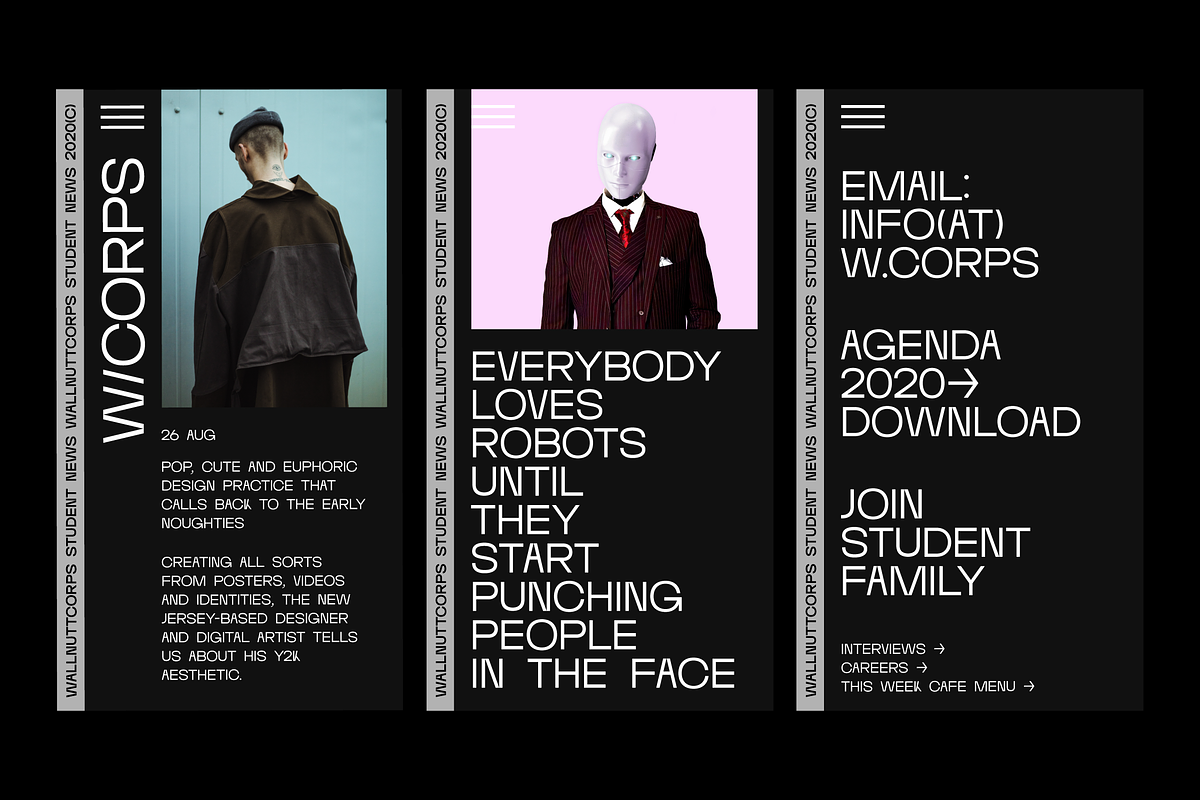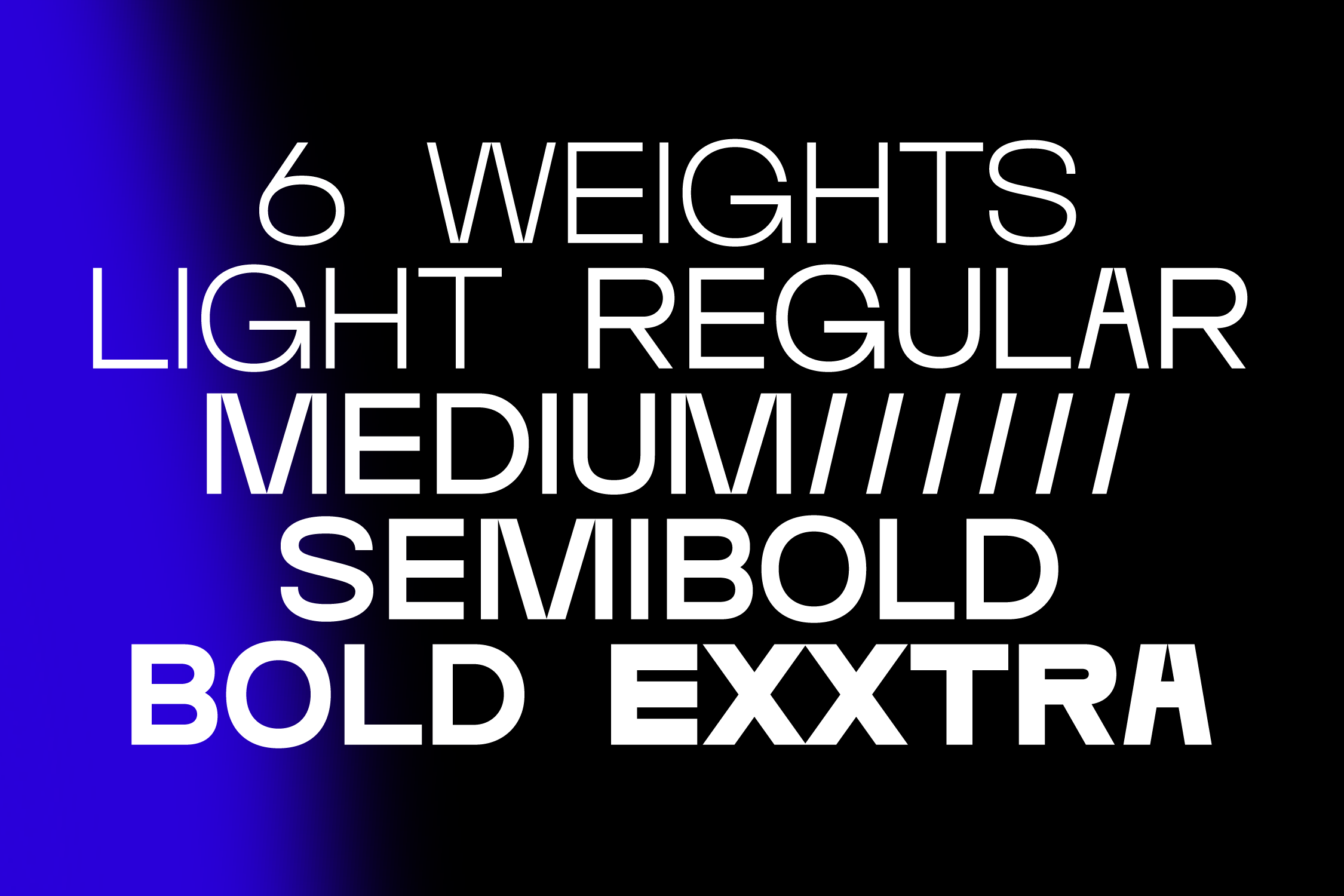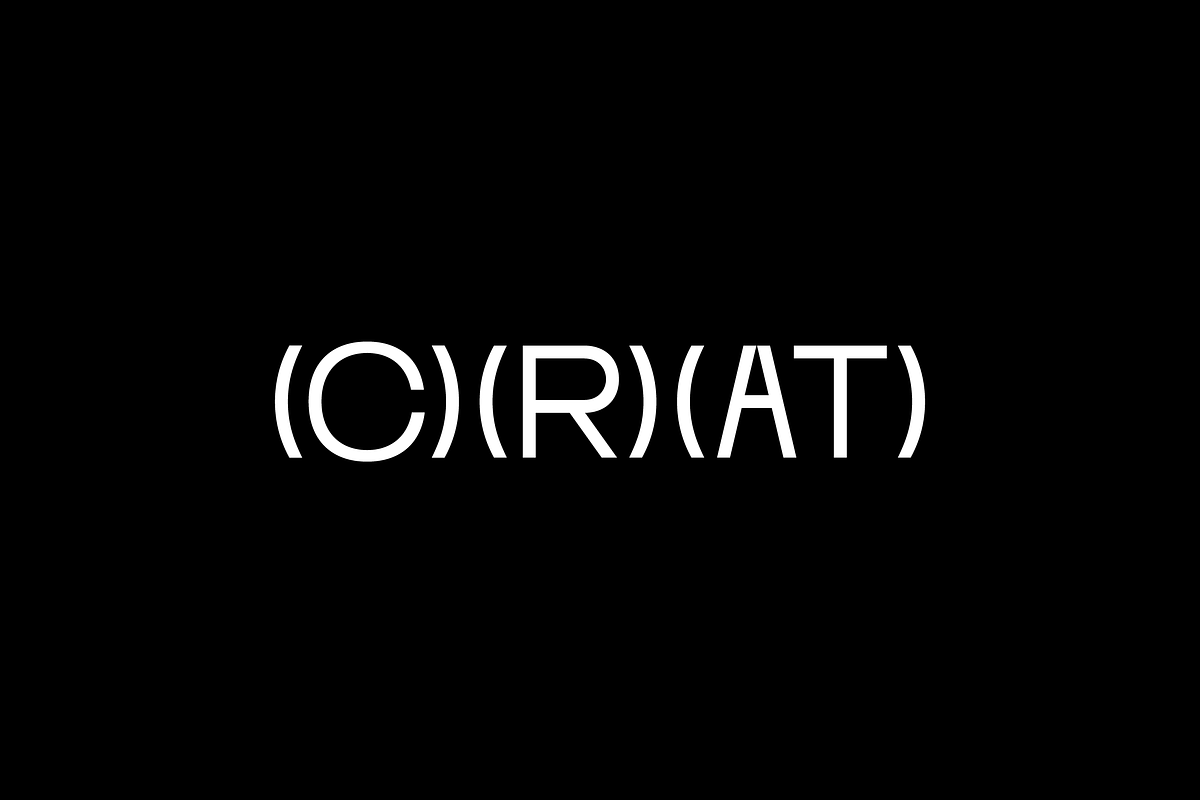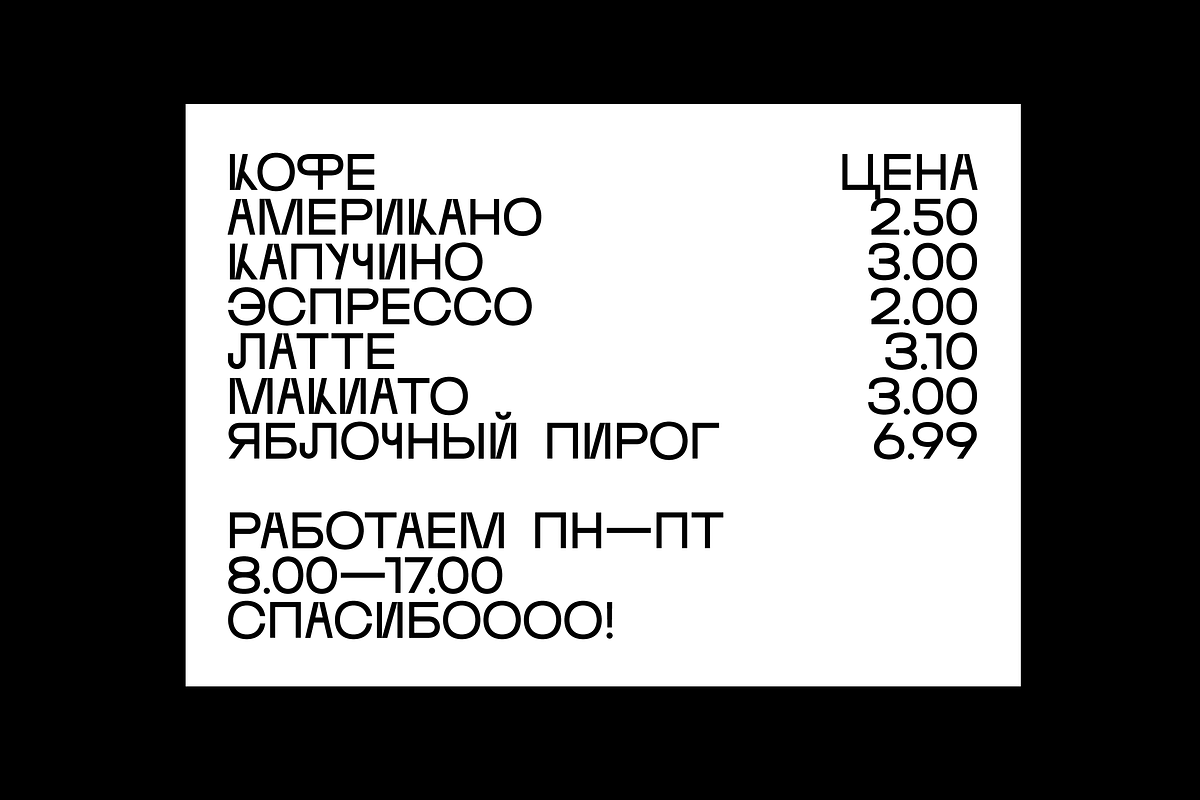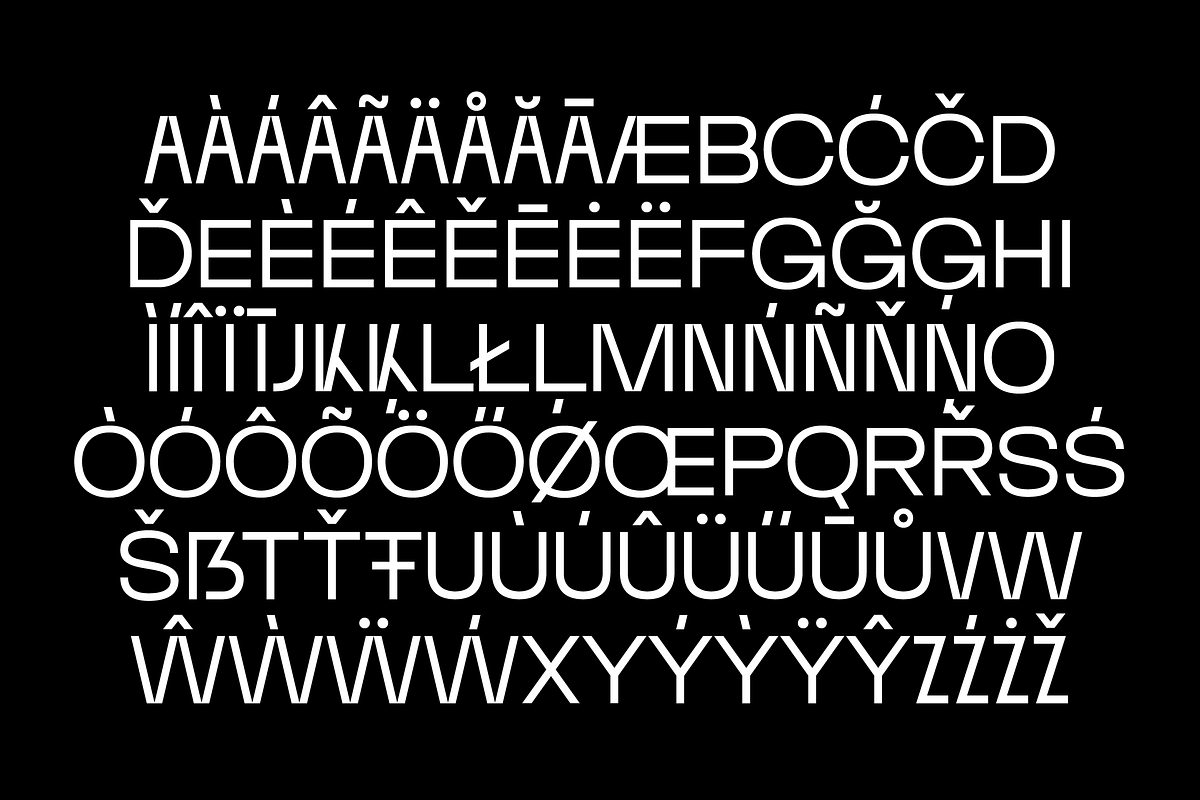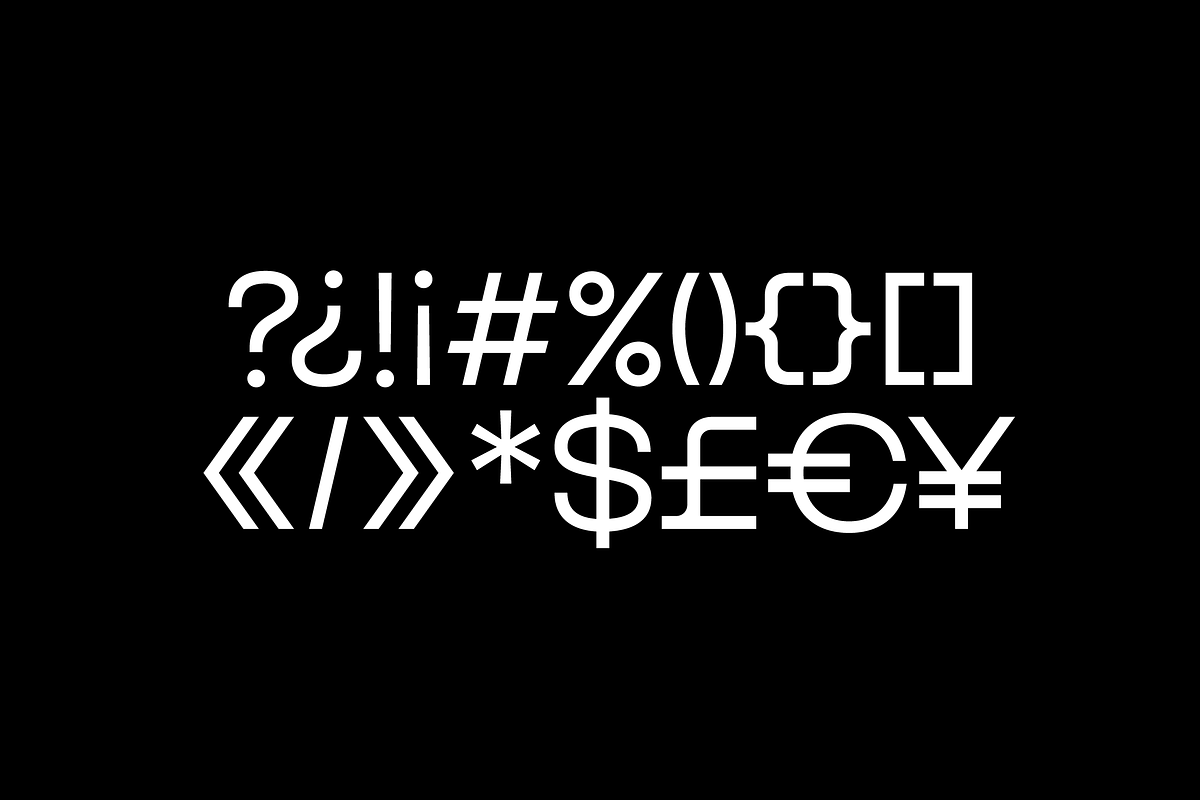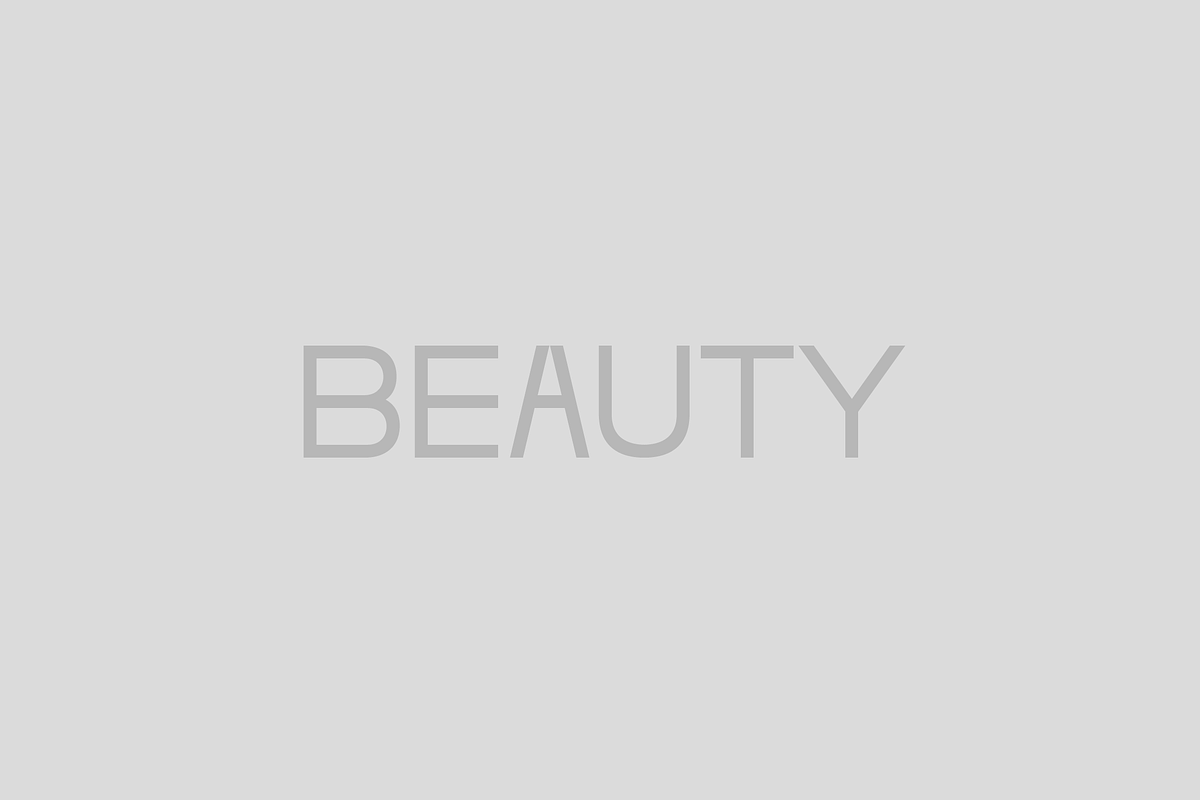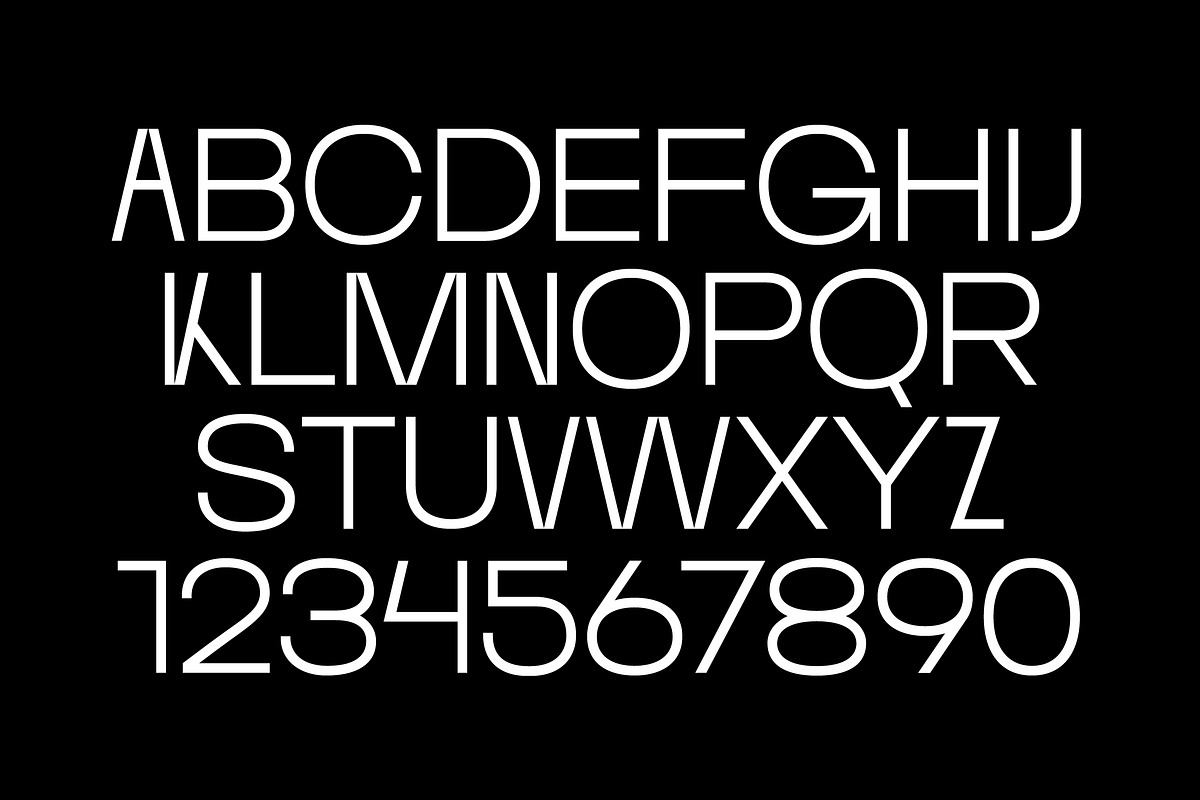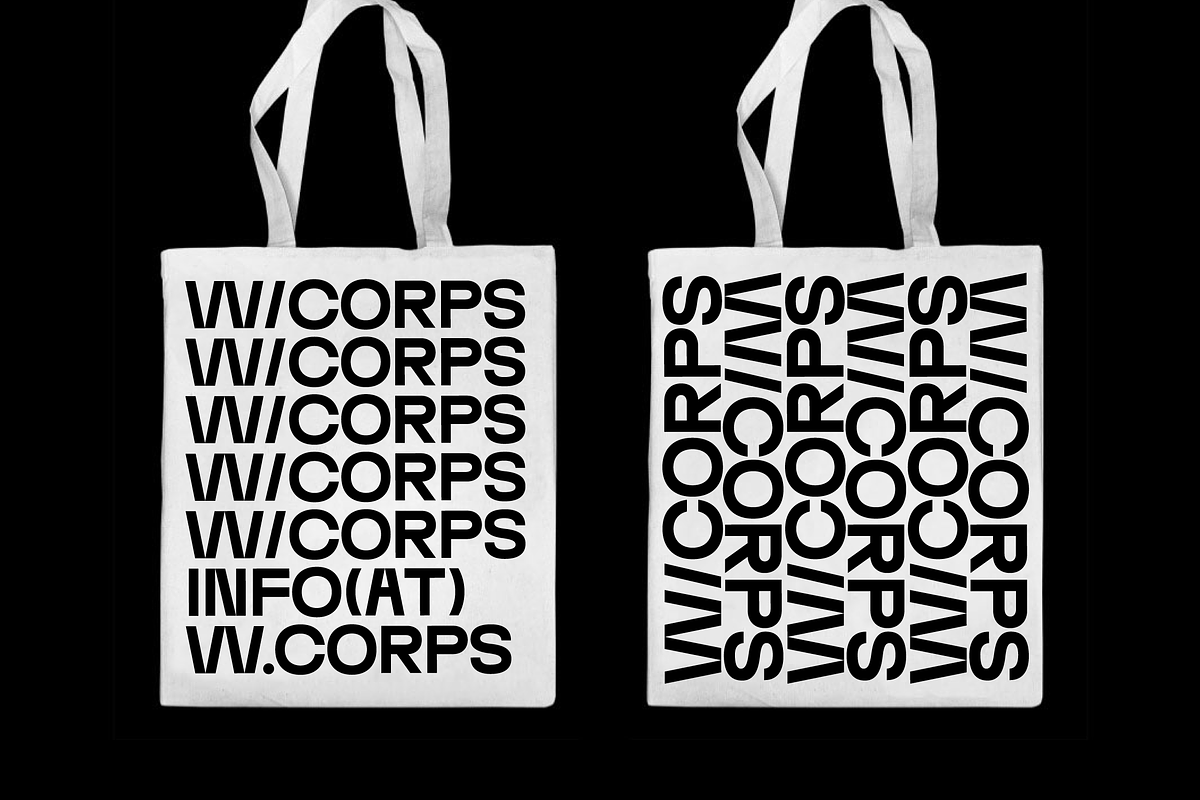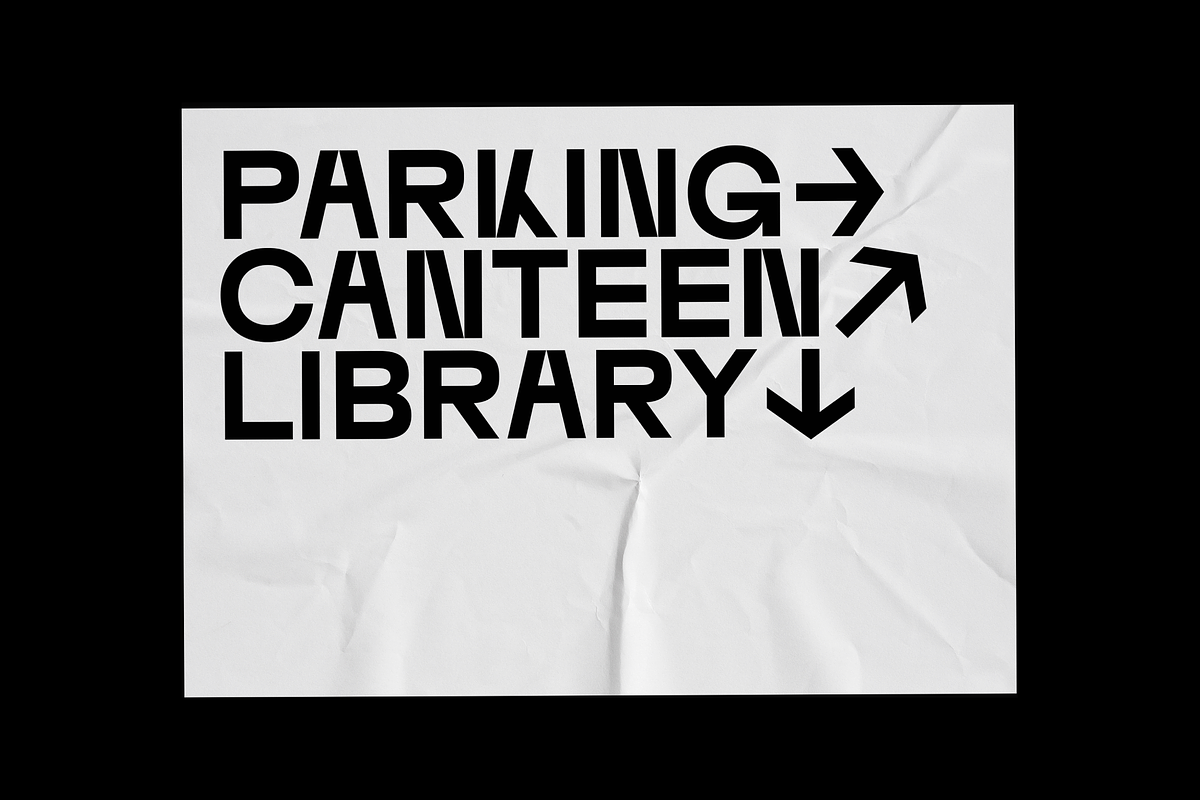
Wallnutt Corps (6 Weights)
WALLNUTT CORPS is a cool, bold and powerful super modern unicase font, designed for maximum visual and emotional impact. It's great for social media, headlines, large-format print, editorial, branding, posters, fashion designs and websites — everything that strives for being confident and yolo. Definitely has a personality!
- Unicase
- 6 Weights (Light, Regular, Medium, Semibold, Bold, Extra)
- Cyrillic
- Extensive Latin script support